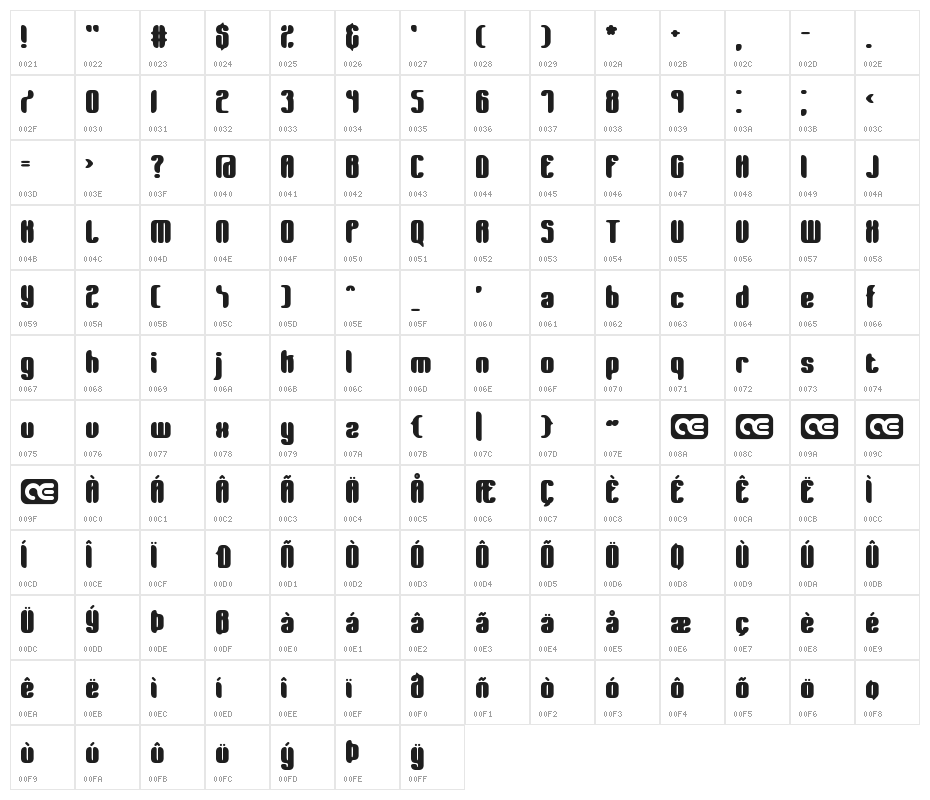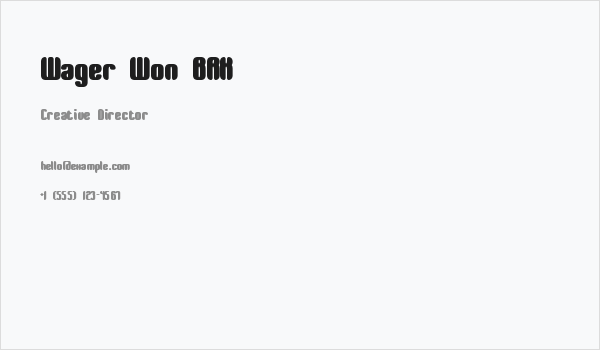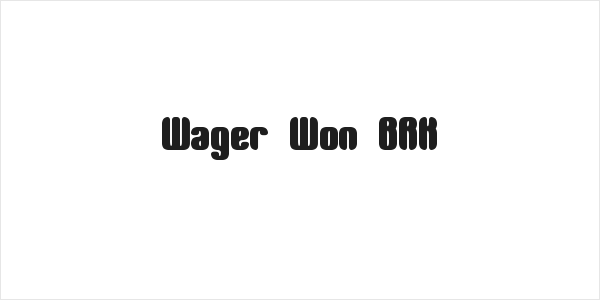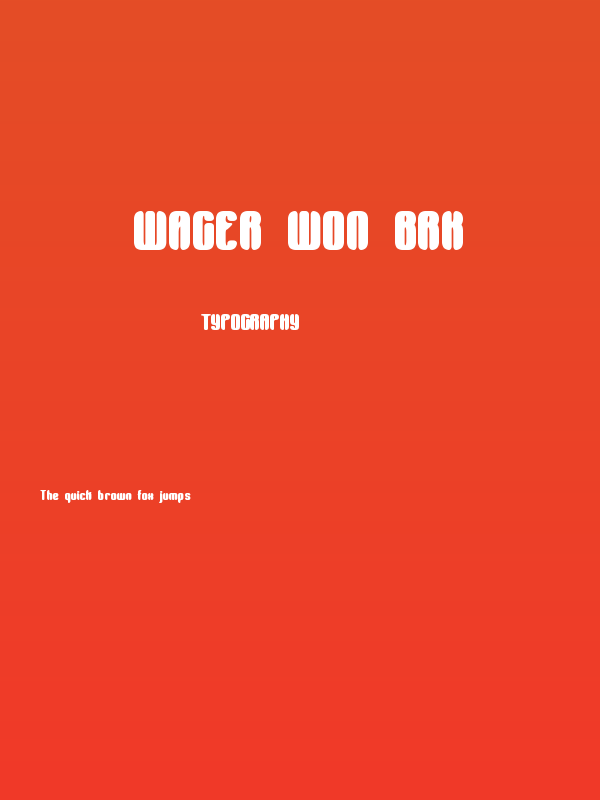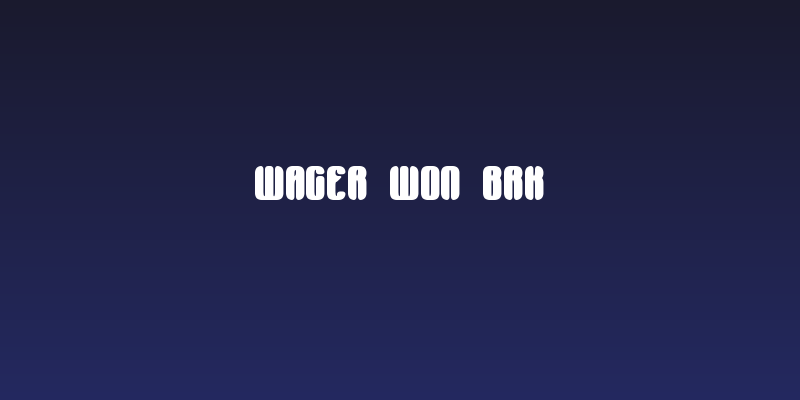
Wager Won BRK Font
Wager Won BRK Description
This font features a bold, rounded style with a unique, playful character. The letters are thick and have a consistent stroke width, giving them a strong presence. The rounded edges and smooth curves create a friendly and approachable look, while the uniformity in height and width across characters ensures readability. The font includes both uppercase and lowercase letters, numerals, and a range of special characters, making it versatile for various uses. Its distinctive style is ideal for projects that require a bold and eye-catching typeface.
| Overall Style | Playful, Modern |
| Proposed Projects | Ideal for branding, posters, headlines, and any design that needs a bold, playful touch. |